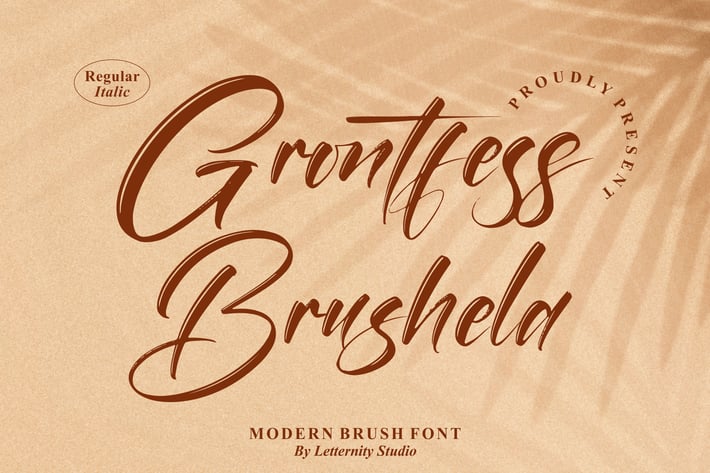
Grontfess Brushela Modern Brush Font
A lively modern brush script with textured strokes and confident curves. Grontfess Brushela captures the feel of real ink on paper—casual, energetic, and stylish—making headlines, quotes, and logos feel hand-crafted. Supplied in Regular & Italic, it’s easy to use across print and digital projects and plays nicely with both bold imagery and minimal layouts.
+ Natural brush texture with smooth outlines
+ Regular & Italic styles
+ Alternates & standard ligatures for natural flow
+ Swashes for eye-catching word ends
+ Multilingual support
+ Precise kerning & clean baseline for pro results
+ Branding & logos
+ Packaging & labels
+ Posters, flyers & headers
+ Social media graphics & quotes
+ Wedding suites & invitations
+ Business cards & name marks
+ Merch & apparel prints
Paint personality into every word with a brush script that’s bold, breezy, and beautifully legible.